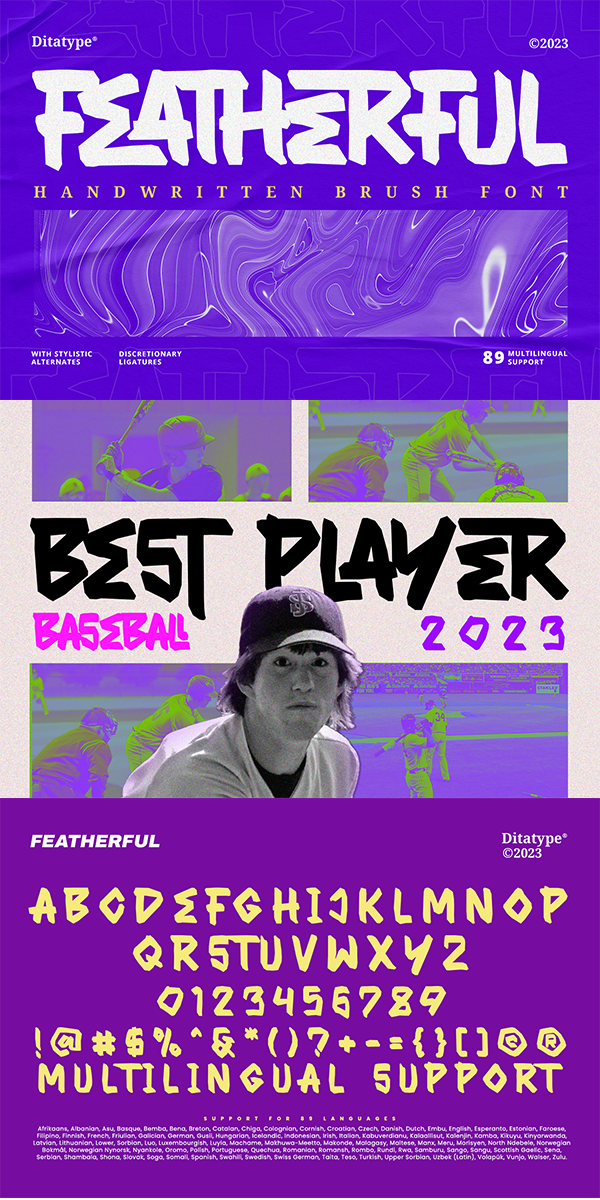
Featherful Font
About Featherful
Featherful, a handwritten brush font that embraces the bold and vibrant strokes of a paintbrush. With Featherful, you have a handwritten brush font that speaks the language of artistry.
The characters in Featherful boast generous proportions, ensuring a visually striking impact in any design. The thick weight enhances the font’s presence, making it suitable for various creative applications. What sets Featherful apart is its rounded letter shapes, creating a friendly and approachable vibe. The details within each letter mimic the expressive strokes of a paintbrush, adding an authentic and artistic touch. Enjoy the features here.